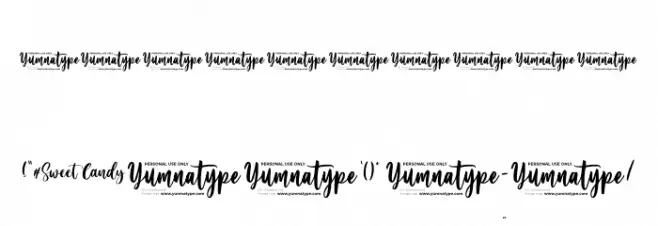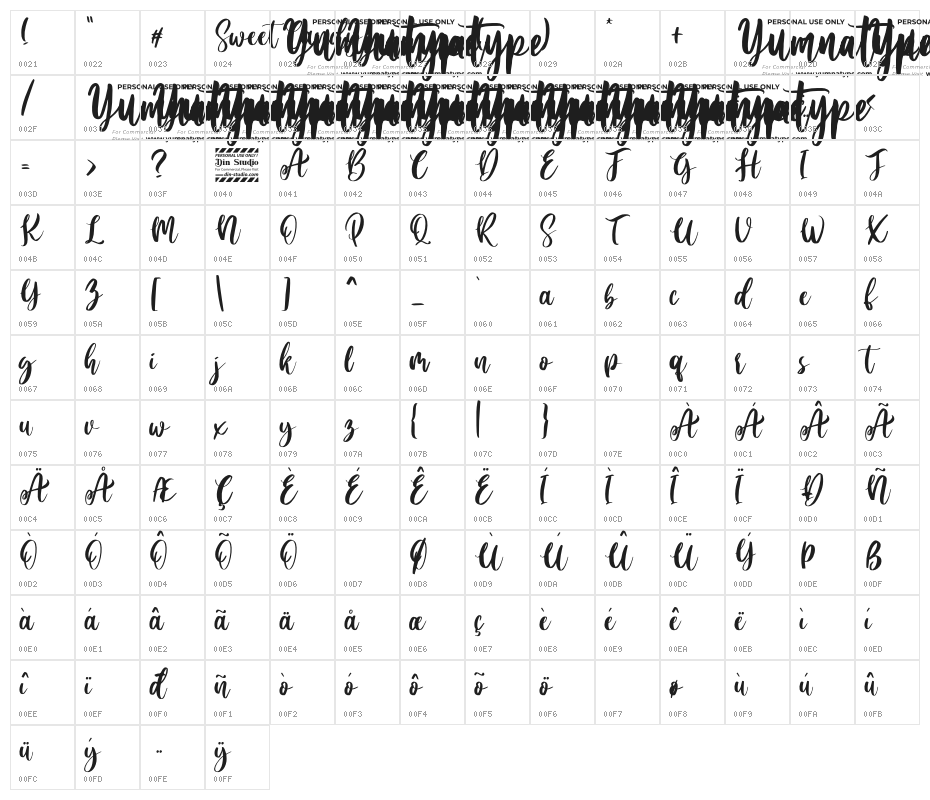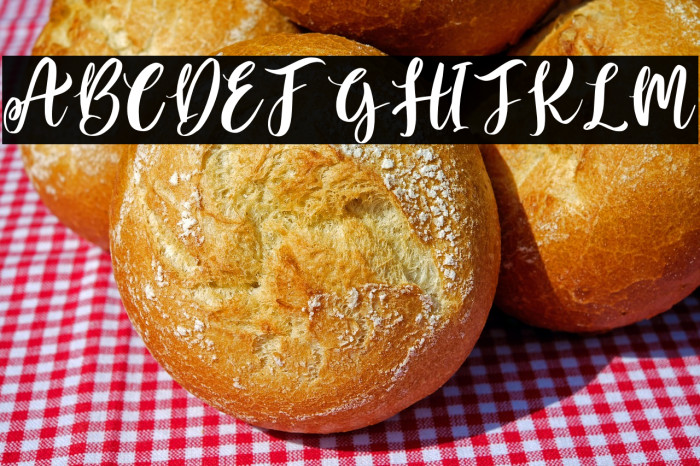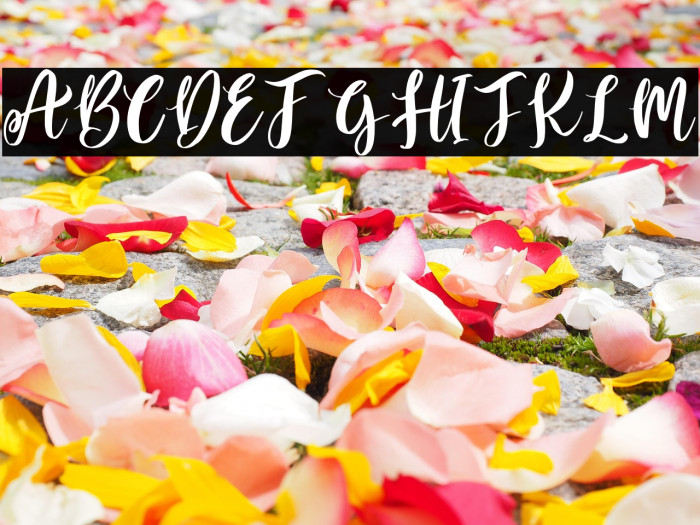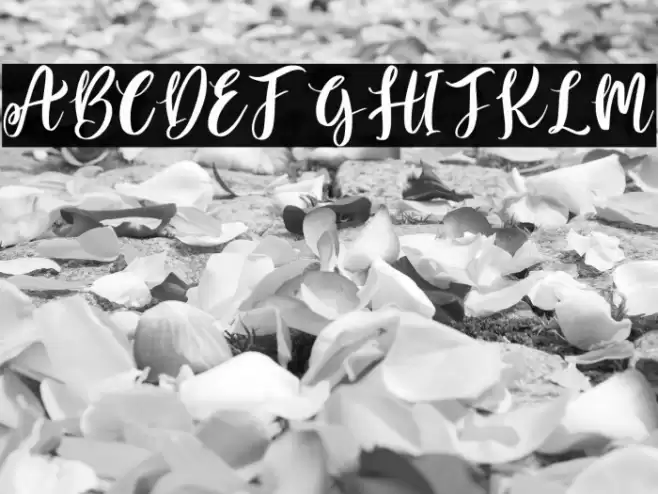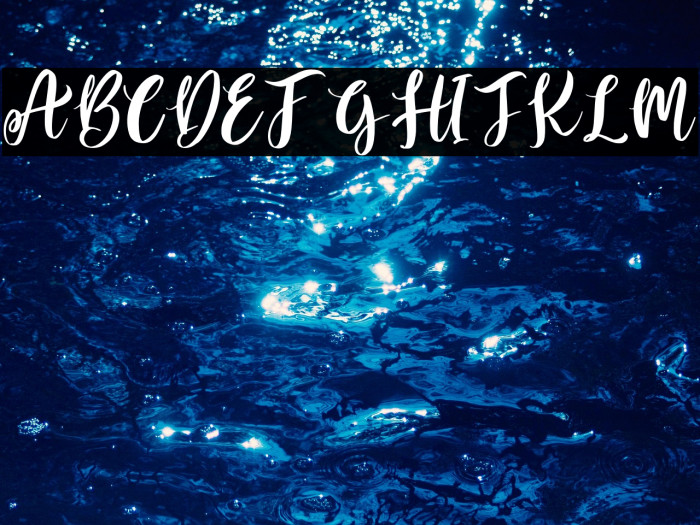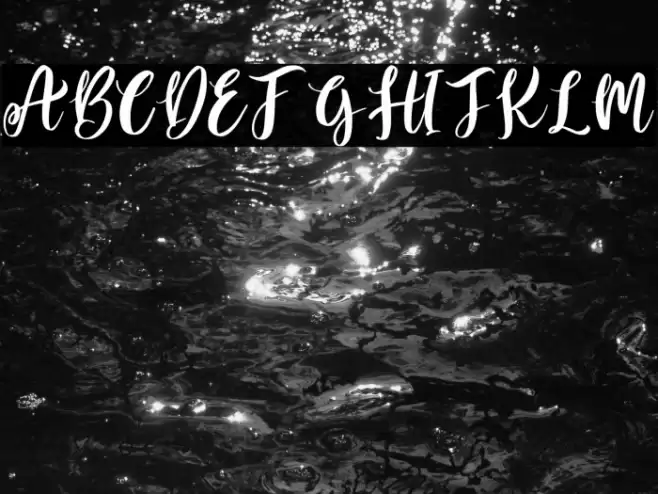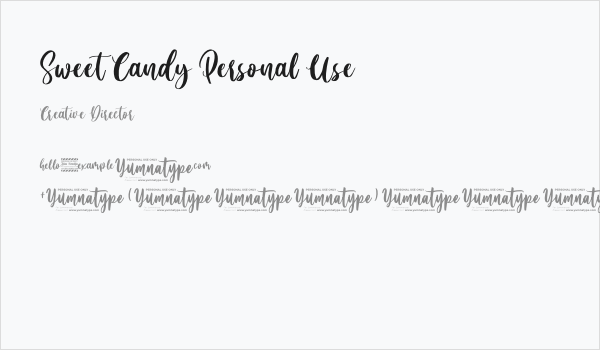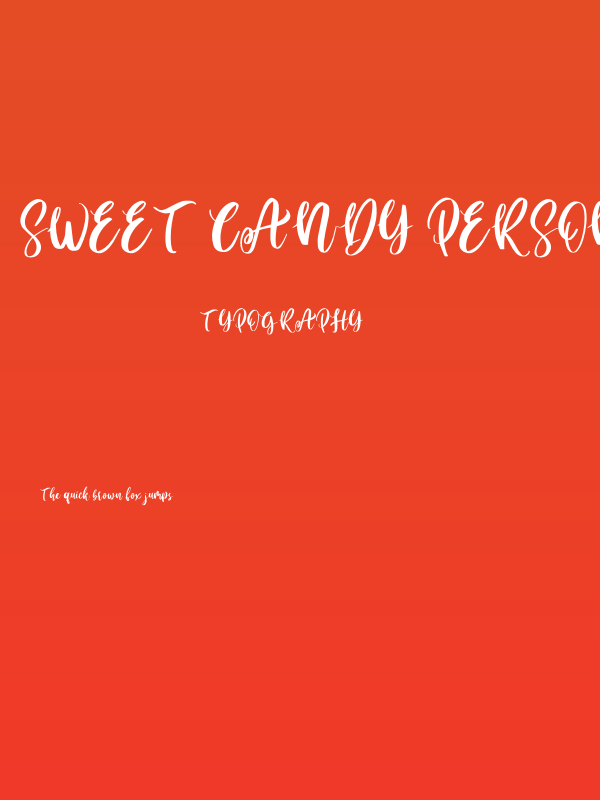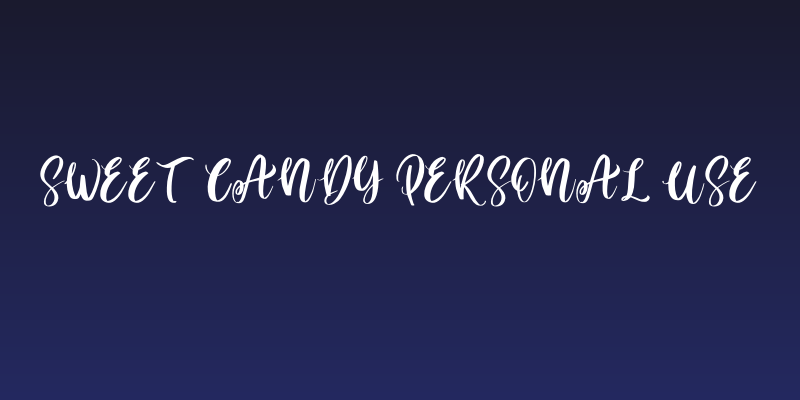
Sweet Candy Personal Use Font
Sweet Candy Personal Use Description
This font features a playful and whimsical script style, characterized by its flowing, cursive letters and bold strokes. The uppercase letters are elegantly looped and connected, while the lowercase letters maintain a consistent, fluid motion. The overall design exudes a sense of fun and creativity, making it ideal for projects that require a touch of personality and flair. The font's boldness and unique character shapes make it stand out, while its smooth curves and rounded edges add a friendly and approachable feel.
| Proposed Projects | Ideal for greeting cards, invitations, branding, and playful graphic designs. |